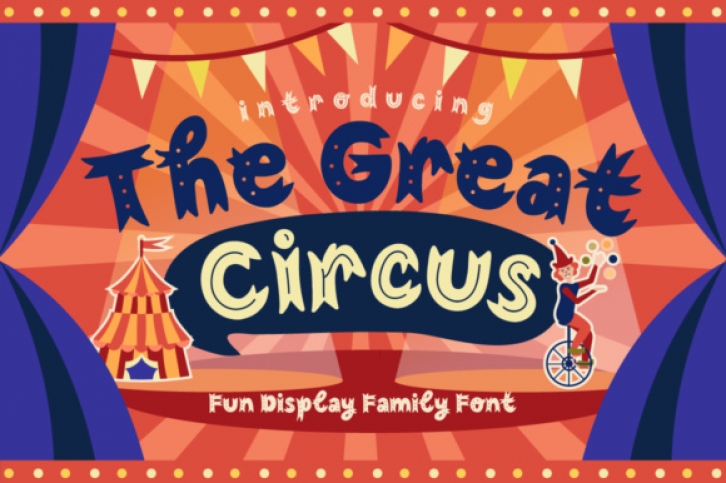
The Great Circus is a gorgeous, decorative display font that will give your creative projects an unparalleled stylish appeal! This font is a great display for use in children’s projects, print projects, and more! This download comes with bonus files.